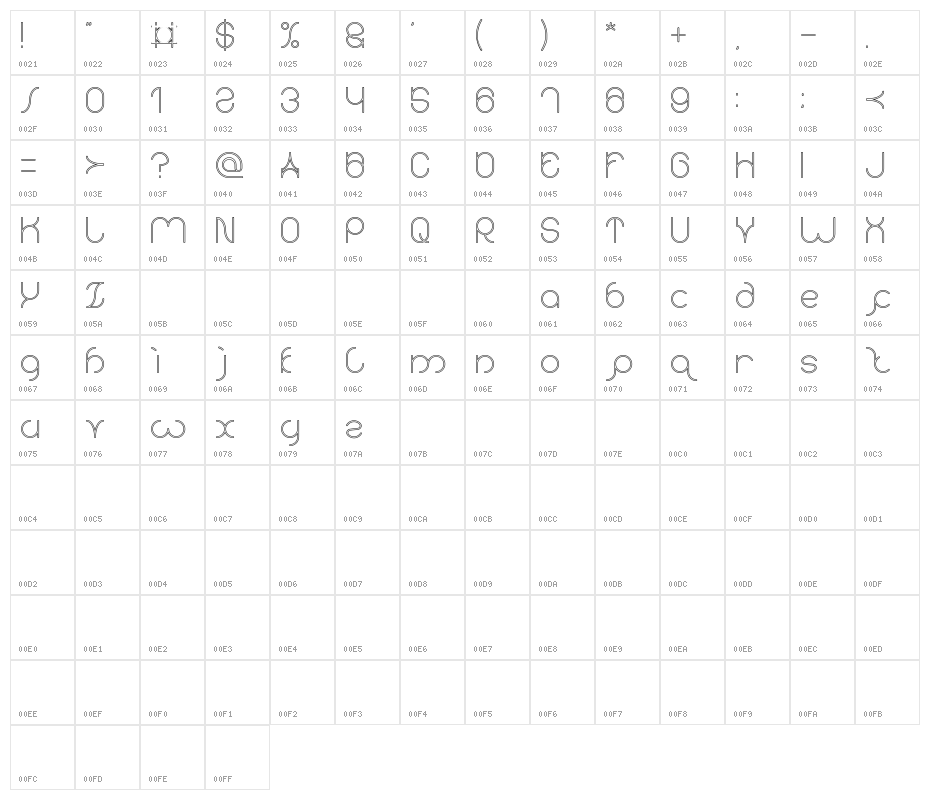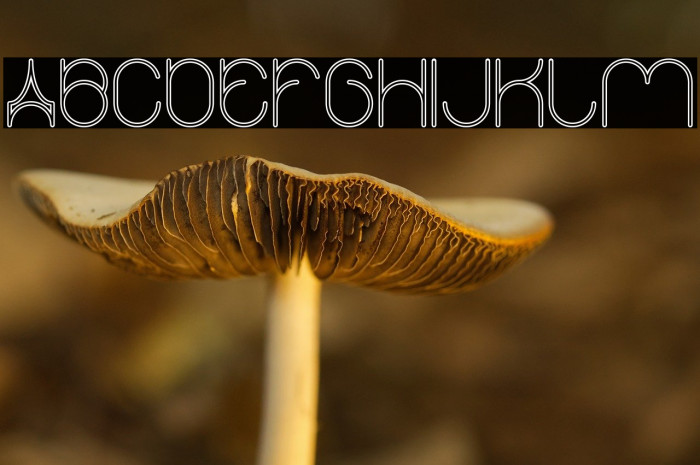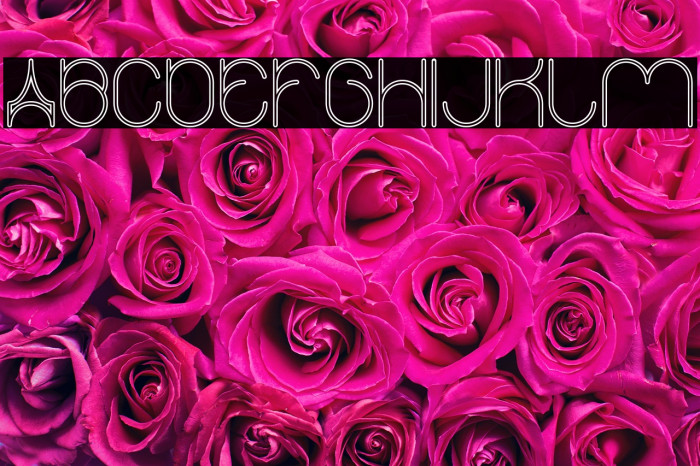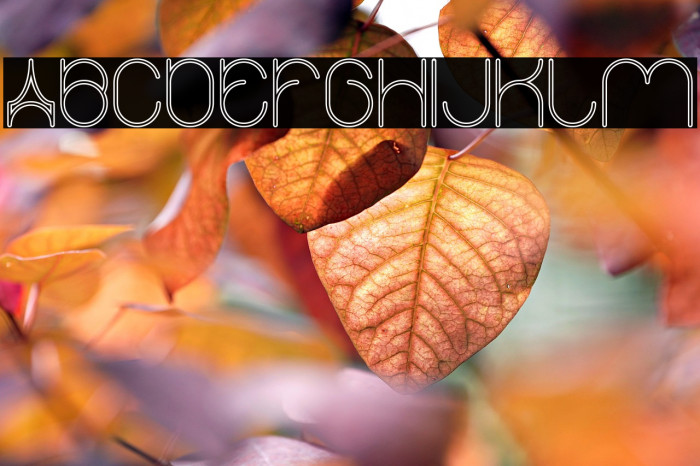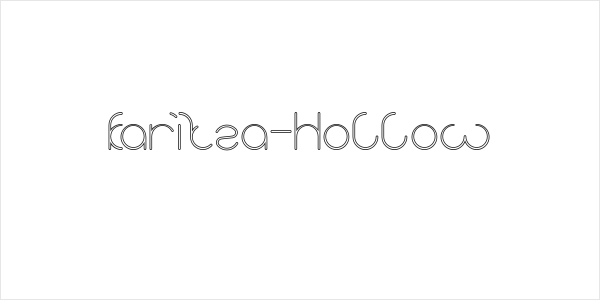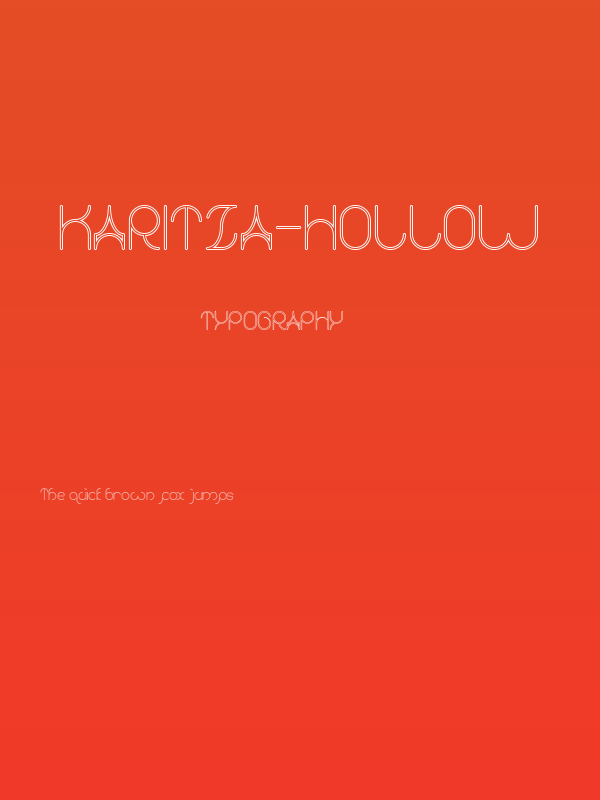
karitza-Hollow Font
karitza-Hollow Description
This font features a unique hollow design with a modern and artistic flair. Each character is outlined, creating a sense of openness and lightness. The curves are smooth and continuous, giving a fluid and dynamic appearance. The uppercase and lowercase letters maintain a consistent style, with rounded edges and a playful yet sophisticated look. Numbers and special characters follow the same design principles, ensuring uniformity across the font. This style is eye-catching and ideal for creative projects that require a distinctive and contemporary touch.
| Proposed Projects | Ideal for branding, posters, album covers, and any project that requires a modern and artistic touch. |